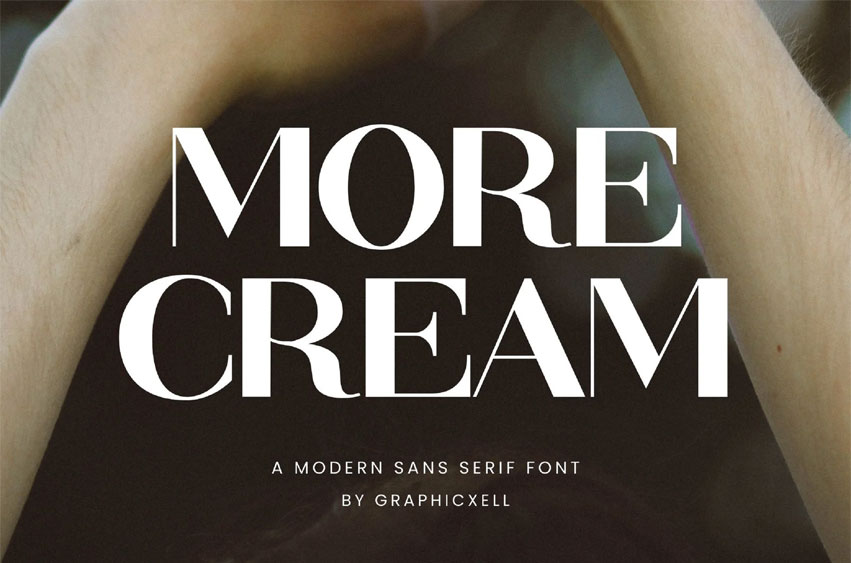
More Cream Font
More Cream Font is an elegant sans serif font designed to bring smoothness and style to your projects. This font combines simplicity with sophistication, making it a perfect choice for fashion, beauty, and luxury branding. Because it has soft curves and balanced letterforms, it creates a clean yet inviting look.
Firstly, More Cream features refined strokes that maintain clarity without sacrificing style. Therefore, it works beautifully for headlines, logos, packaging, and web design. Moreover, the font has excellent readability, even in smaller sizes, which makes it versatile for various uses.
In addition, this font includes uppercase and lowercase letters, numbers, and essential punctuation. Thus, it covers most typographic needs. The consistent spacing and smooth edges add a polished feel that fits well with modern and minimalist aesthetics.
Why choose More Cream?
• It offers an elegant, smooth design perfect for luxury brands.
• The sans serif style ensures clean and clear text.
• It works well for logos, headlines, packaging, and more.
• Great readability on both screen and print.
• Includes a full set of characters for flexibility.
• Combines simplicity with a touch of sophistication.
Furthermore, More Cream pairs well with serif or script fonts to create beautiful contrast. Its subtle elegance helps your designs stand out without overwhelming other elements.
In conclusion, More Cream is a stylish and refined sans serif font that adds a smooth, professional touch to any project. Try it today to elevate your design with clarity and grace. Above all, this font keeps your message both attractive and easy to read.